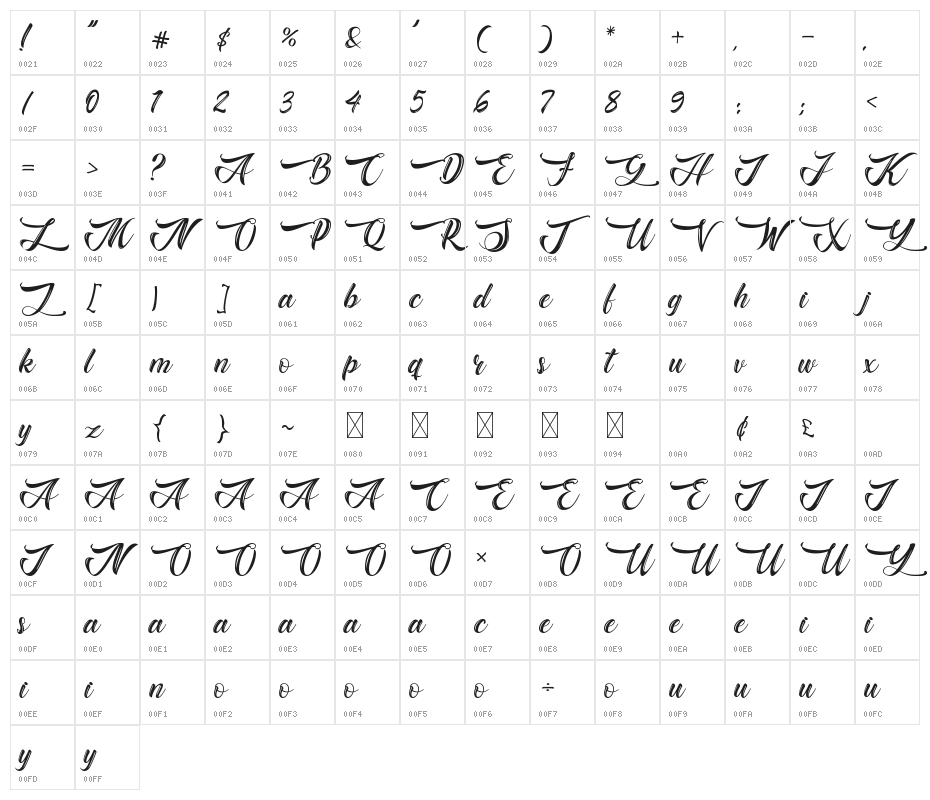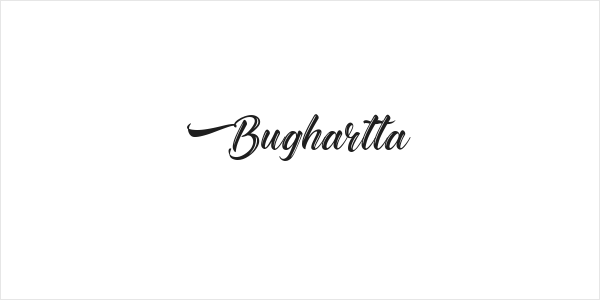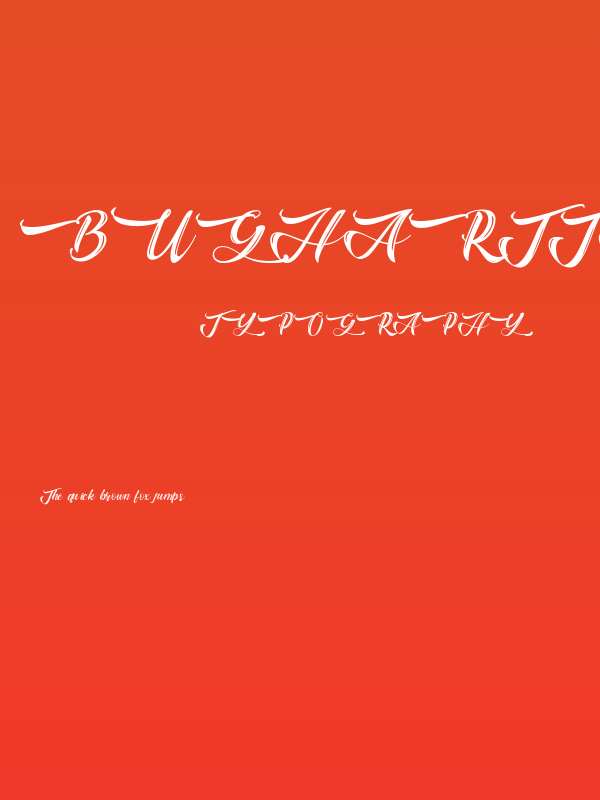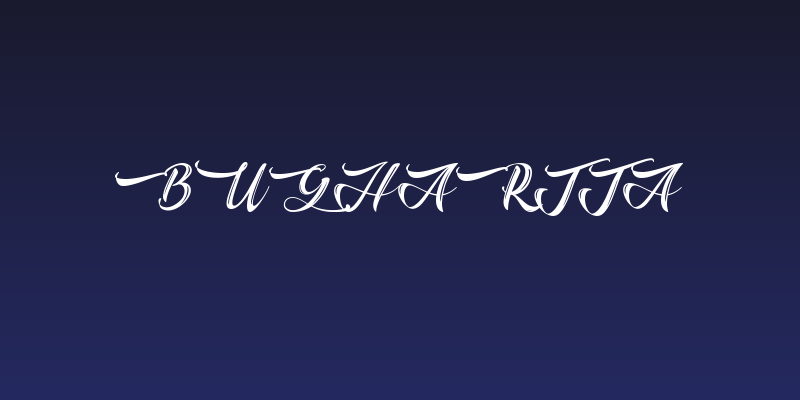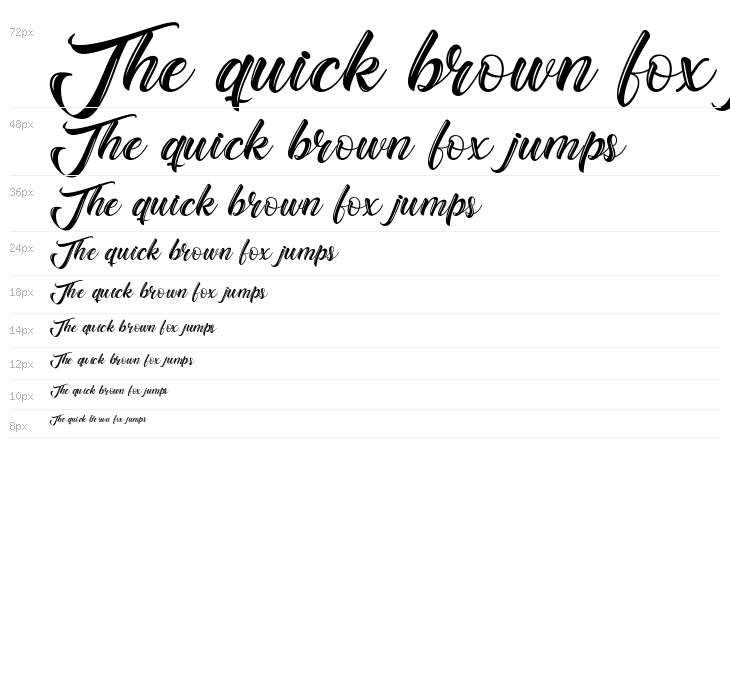
Bughartta Font
Bughartta Description
This font features an elegant and flowing script style, characterized by its smooth, cursive strokes and graceful curves. The uppercase letters are ornate, with intricate loops and swashes that add a touch of sophistication. The lowercase letters maintain a consistent flow, enhancing readability while retaining a stylish flair. Numbers and special characters are designed to complement the overall aesthetic, ensuring a cohesive look across all text elements. This font exudes a sense of elegance and refinement, making it suitable for a variety of creative applications.
| Proposed Projects | Ideal for wedding invitations, greeting cards, branding projects, and elegant logos. |